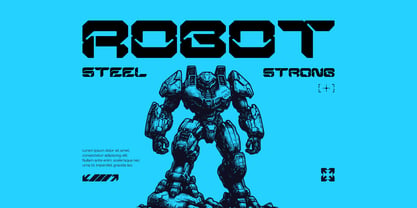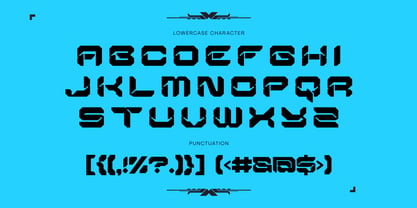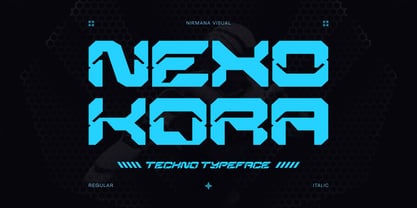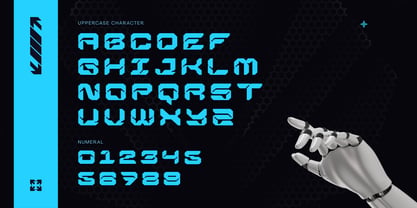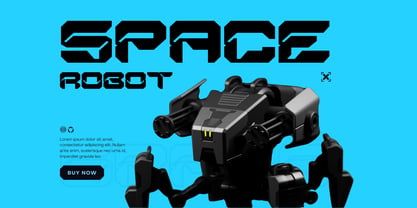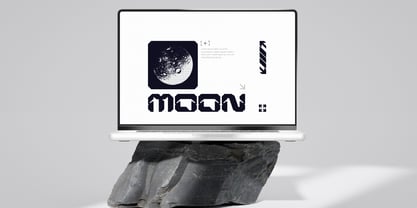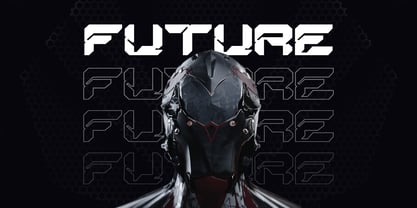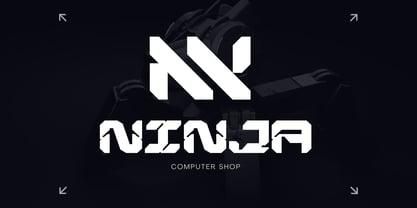
Nexokora Techno
von Nirmana Visual
Die Schriftfamilie Nexokora Techno wurde von Sigit Dwipa entworfen und von Nirmana Visual veröffentlicht. Nexokora Techno enthält 2 Stile und Familienpaketoptionen. Mehr über diese Familie
Nexokora Techno Font is a modern, futuristic typeface built with a bold techno concept. Featuring both Regular and Italic styles, it delivers sharp precision and high-speed energy, perfect for standout logos and bold branding. With clean lines and a digital edge, Nexokora is ideal for tech, esports, and innovation-driven designs—bringing a sleek, modern vibe to every project with power, style, and motion.
Designer: Sigit Dwipa
Foundry: Nirmana Visual